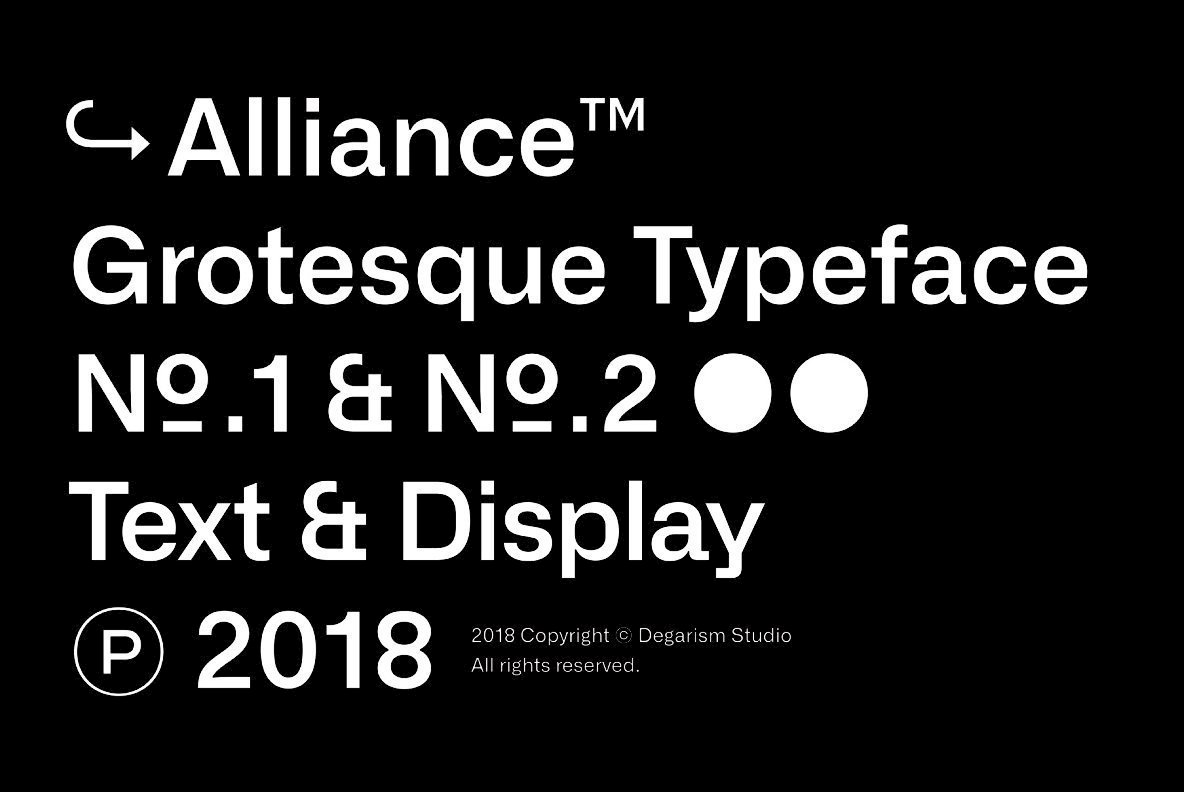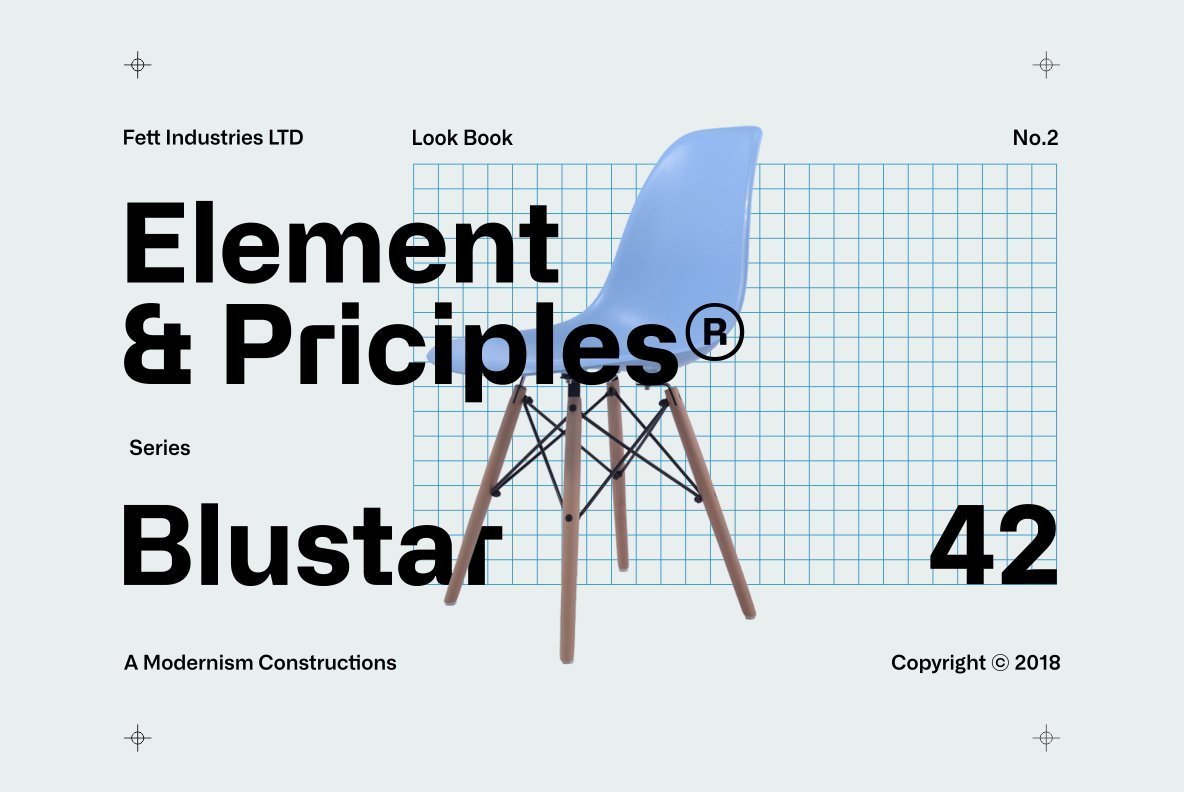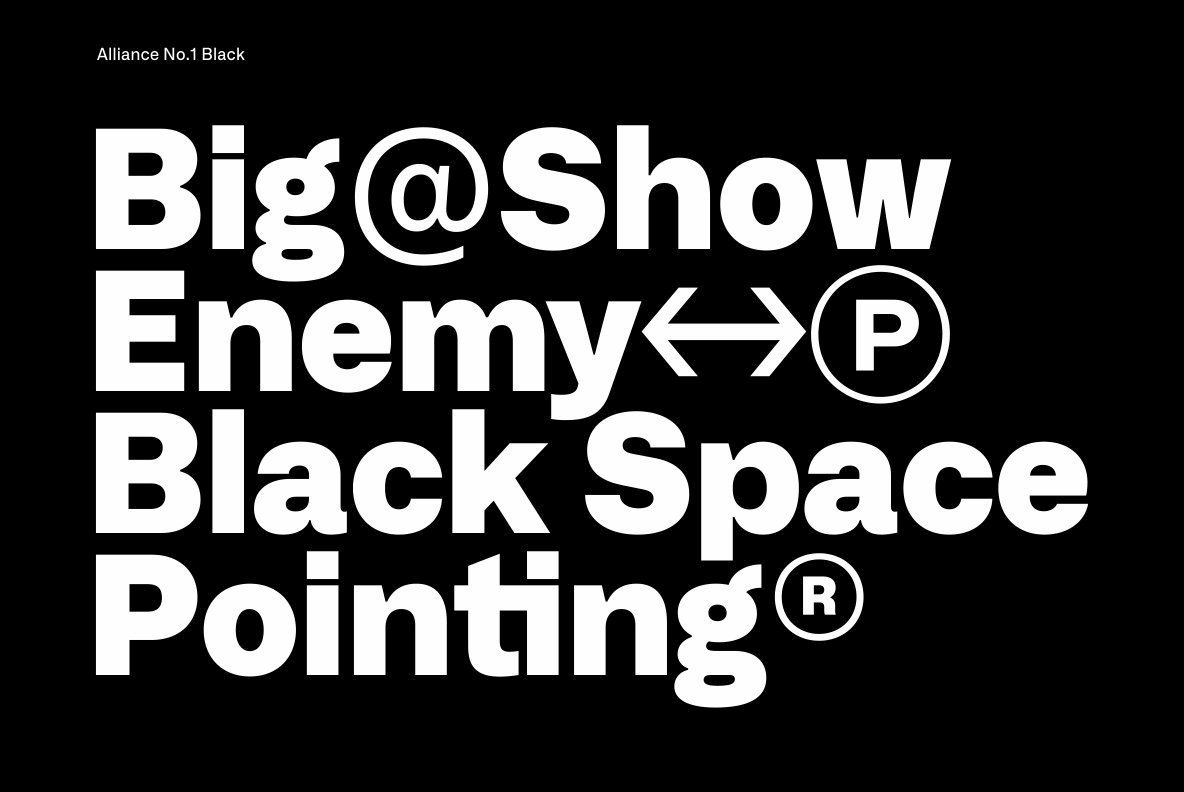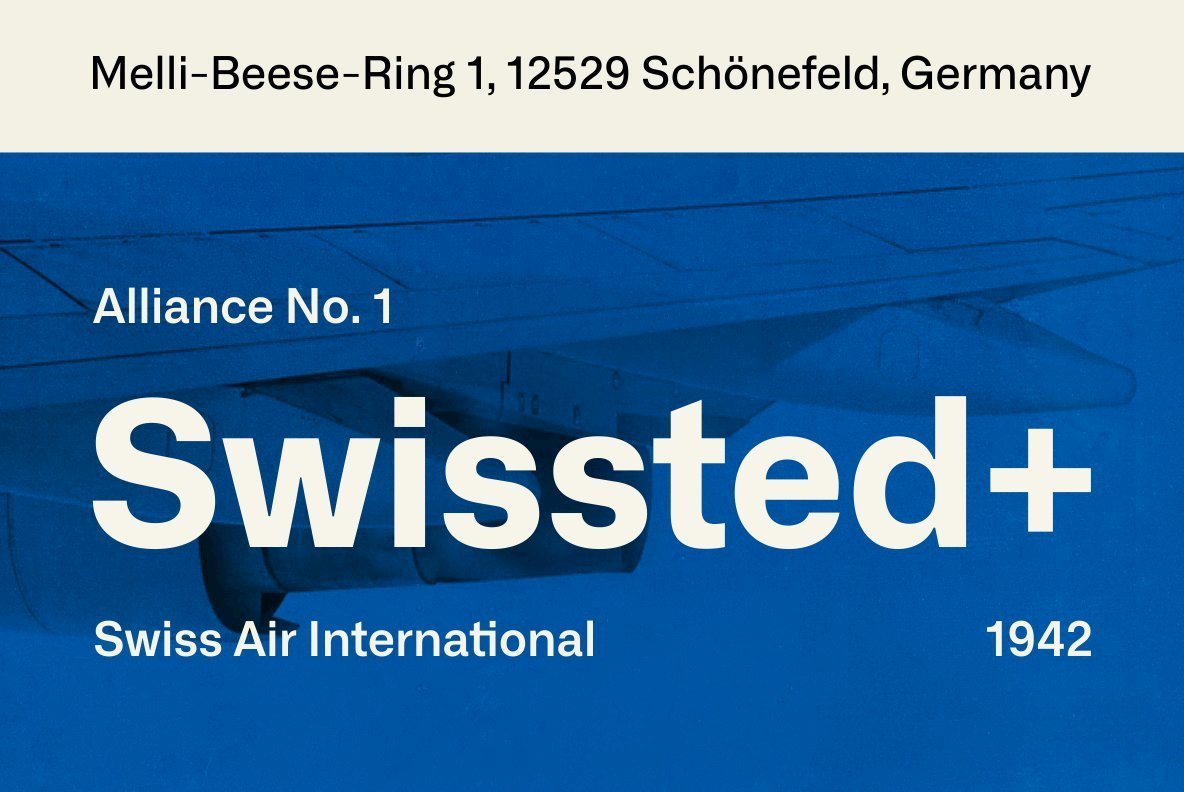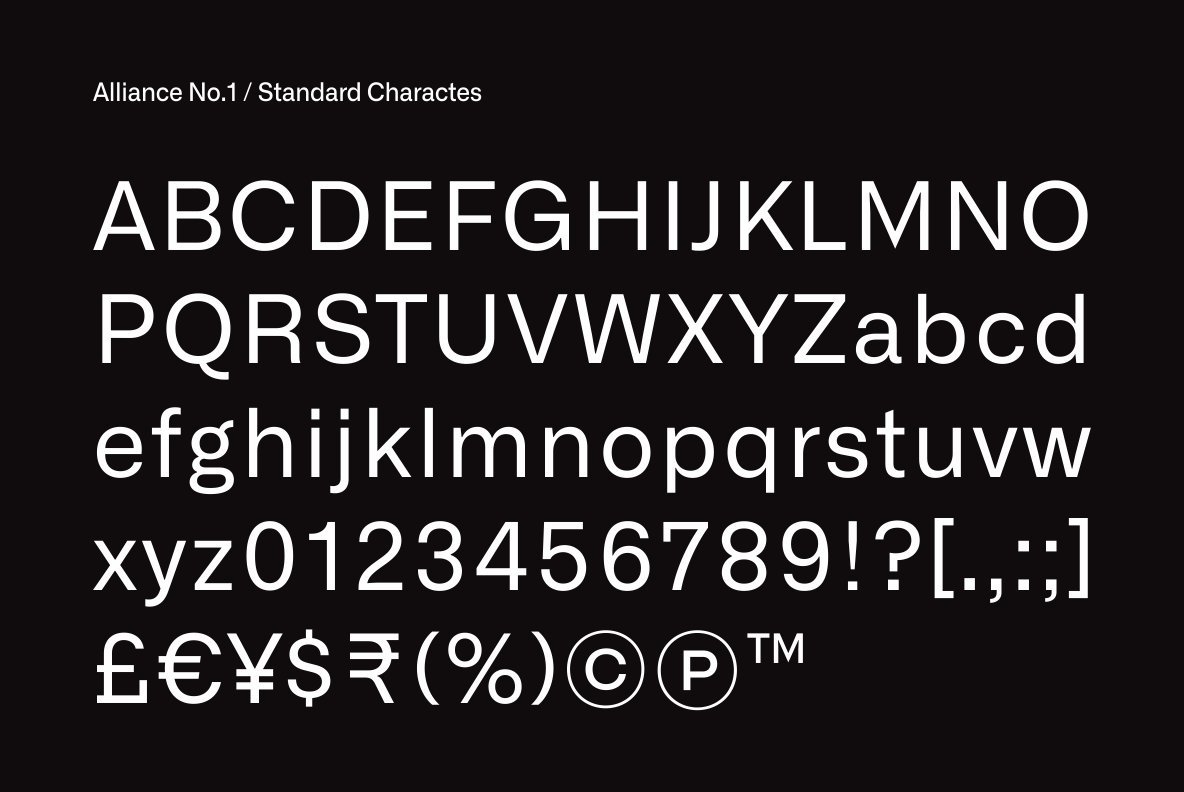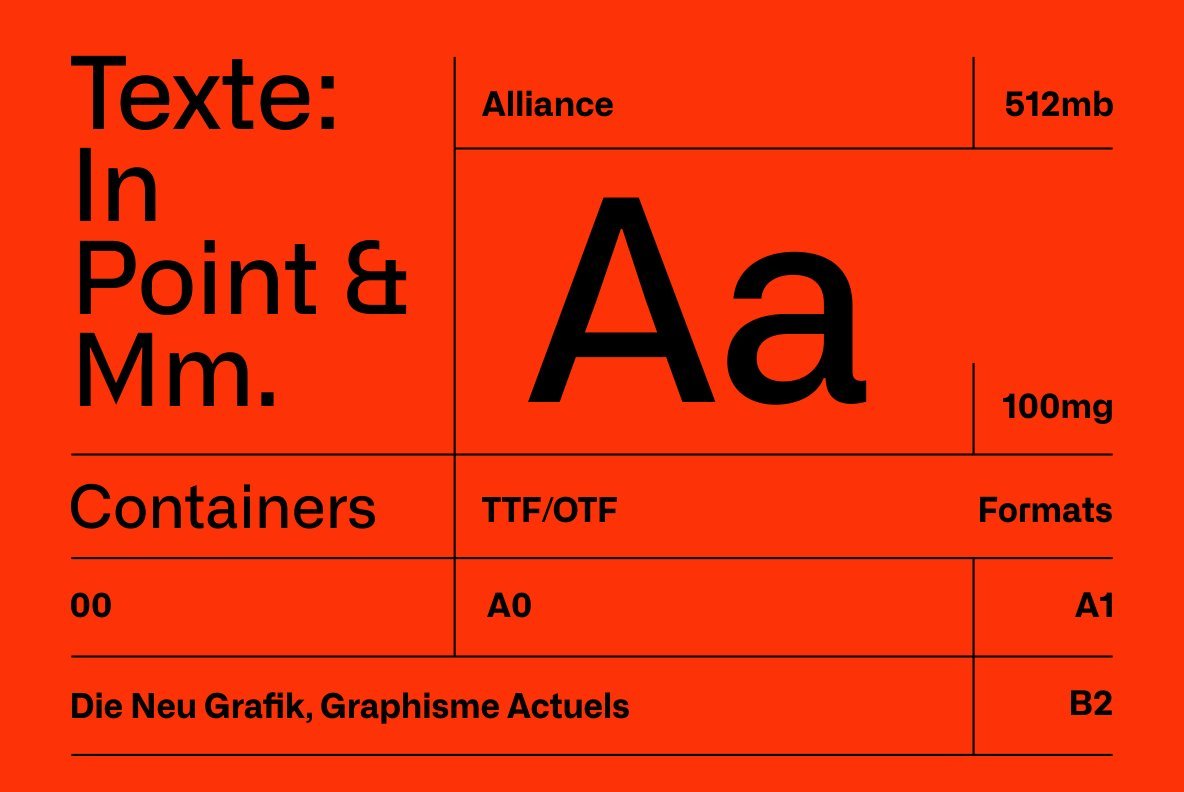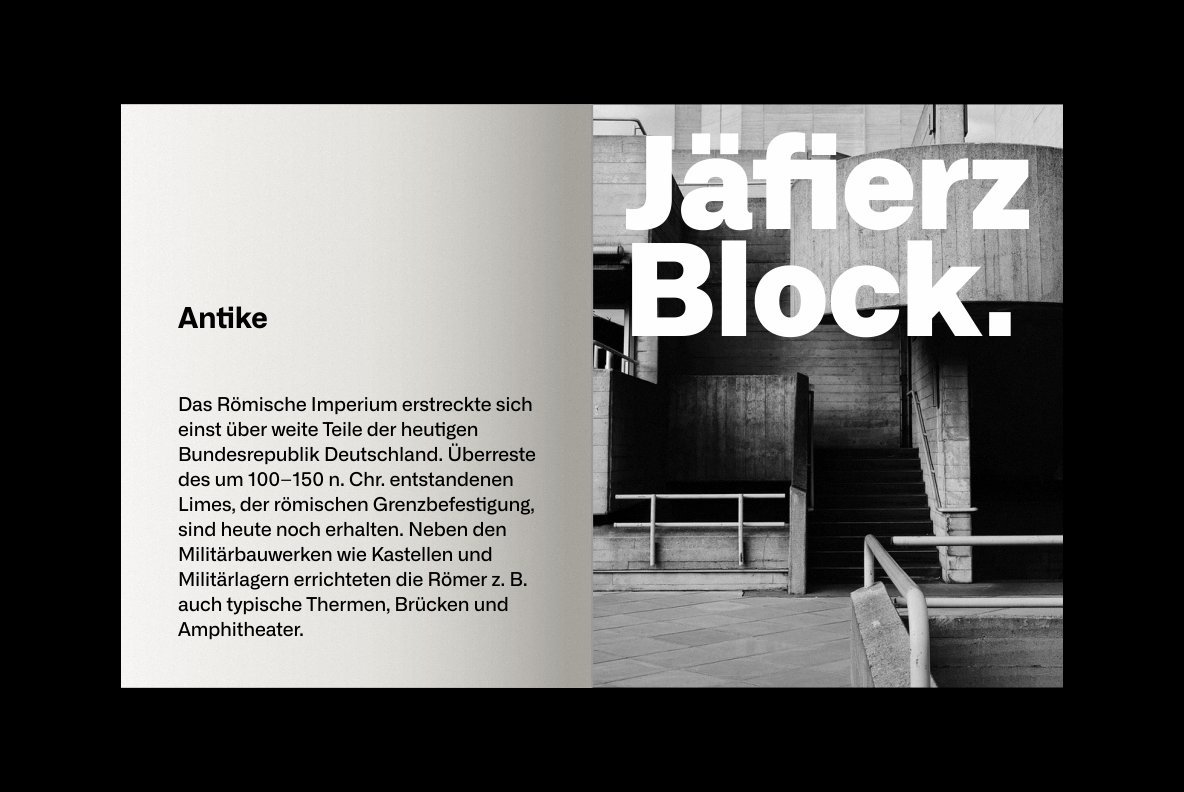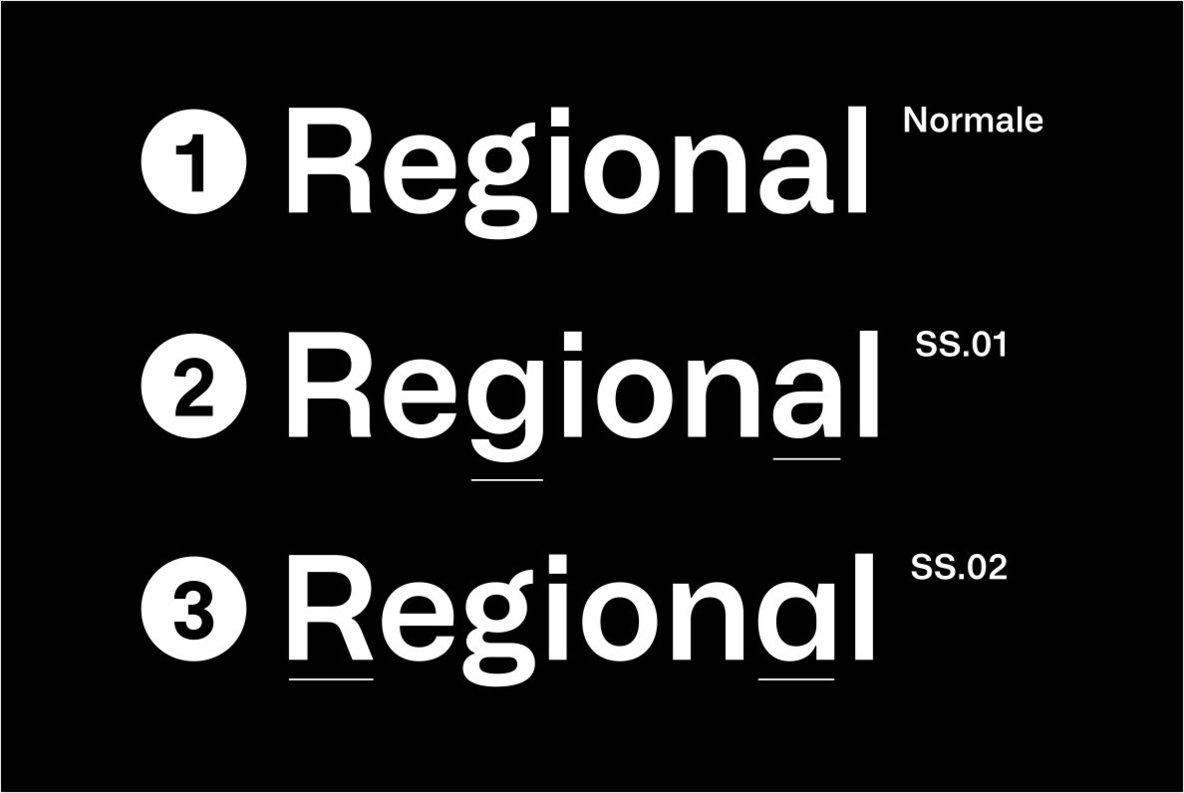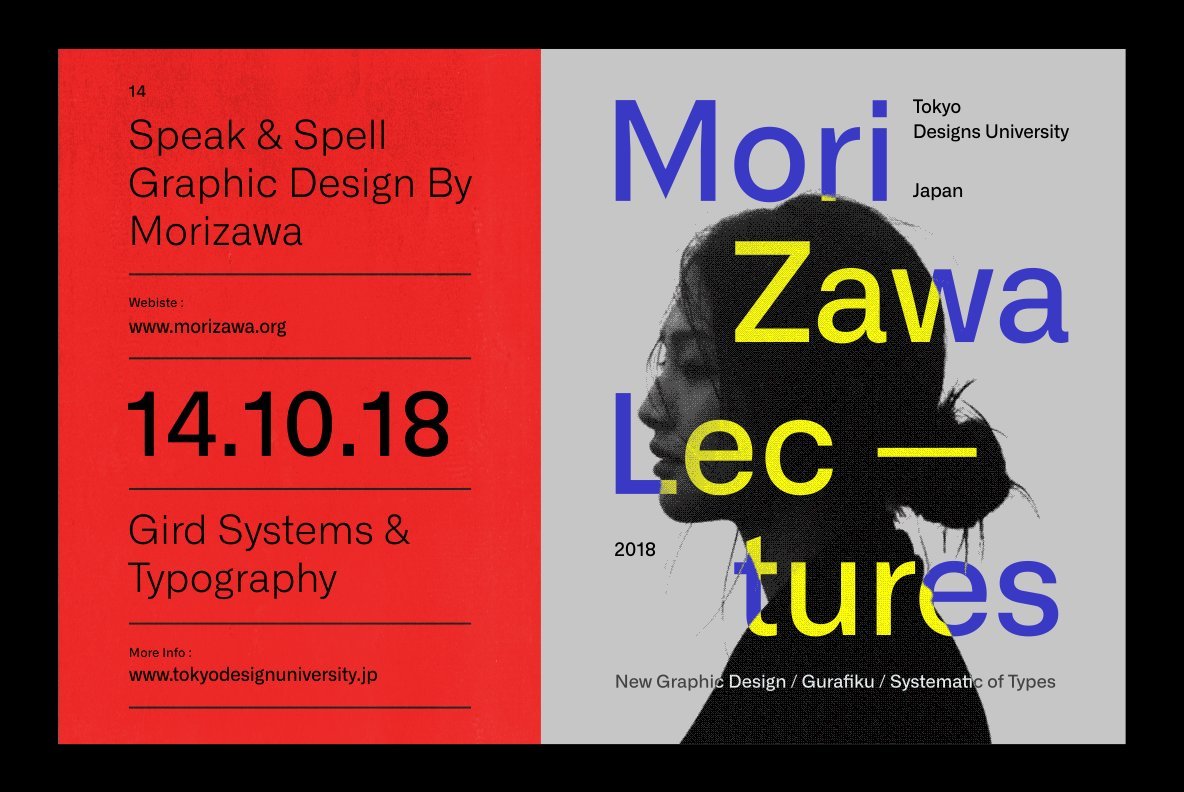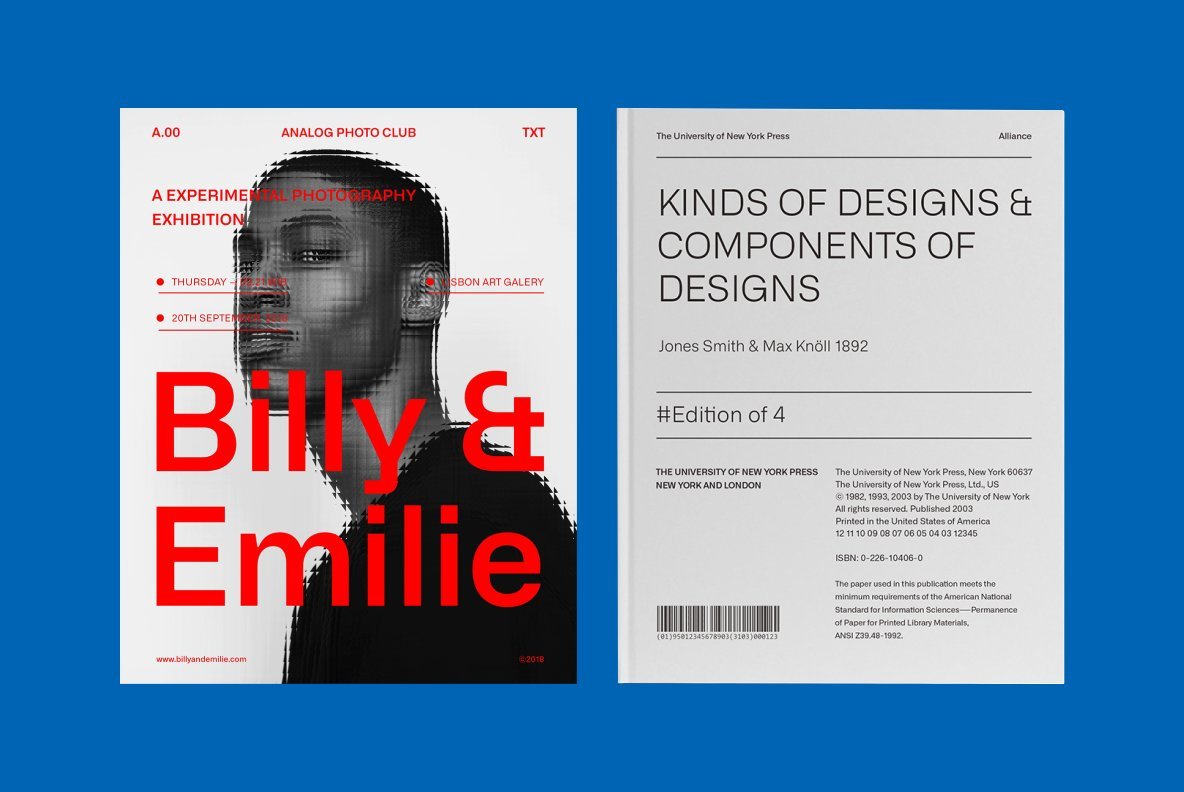
Alliance Font
Alliance contains 28 weights, 14 uprights, matching italics and contains over 592 glyphs with extensive Western, Central and Eastern European language support. Inspired by Industrial era types from the end of the 19th century, Alliance attempts to follow traditions of Grotesk typefaces. Alliance features mono linear strokes and a good amount of contrast between the stroke thickness of each weight.
Alliance No.2 is a display typeface, developed for use in large sizes and based on the combination of contrasting shapes.